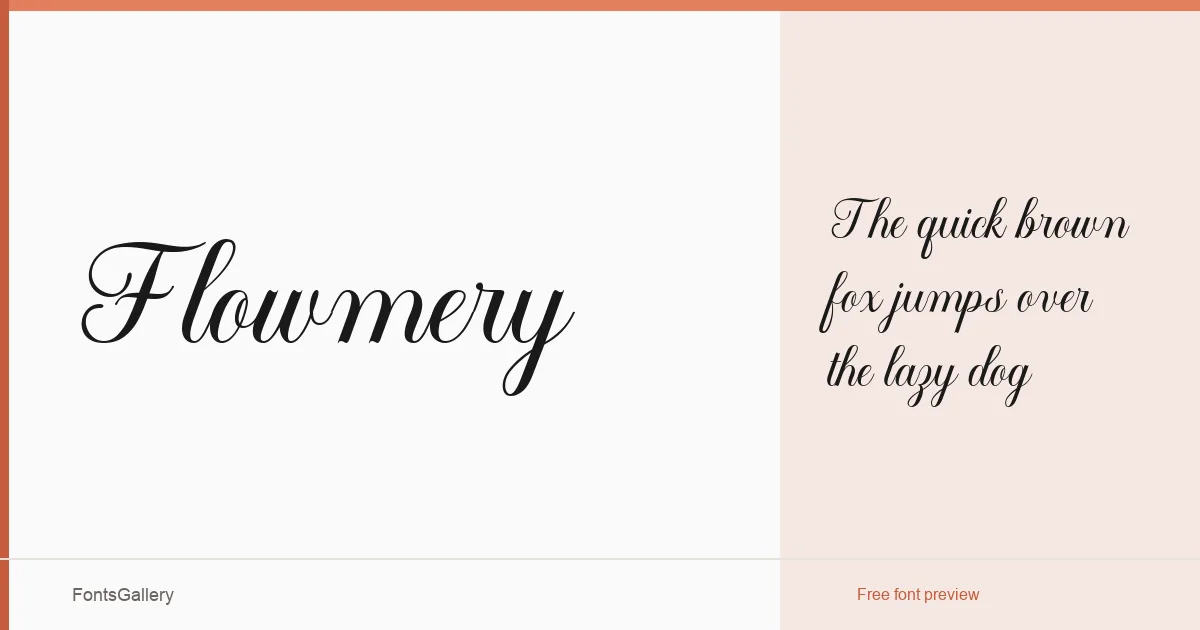
About Flowmery Font
Flowmery is an elegant script typeface crafted by Dwi Cahyadi under the Alit Design foundry. It embodies a sense of luxury and romance, making it a refined choice for designers seeking a classic, graceful aesthetic. Its flowing letterforms bring timeless sophistication to any creative project.
Flowmery features the sweeping, connected strokes characteristic of a classic script, evoking an air of elegance and romance. Each letterform is carefully shaped to convey luxury and refinement, with fluid curves and graceful transitions that give the typeface a distinctly romantic and ceremonial quality. The overall character of the font lends itself beautifully to compositions that demand a touch of timeless class.
Flowmery is ideally suited for wedding stationery, invitation cards, greeting cards, logos, and upscale branding projects where elegance and luxury are paramount. Its romantic character makes it especially compelling for editorial and event-related designs that require a refined, personal feel. For a balanced typographic composition, consider pairing Flowmery with Aresink for a harmonious script combination, or with Helvetica to create a striking contrast between classic elegance and modern simplicity.